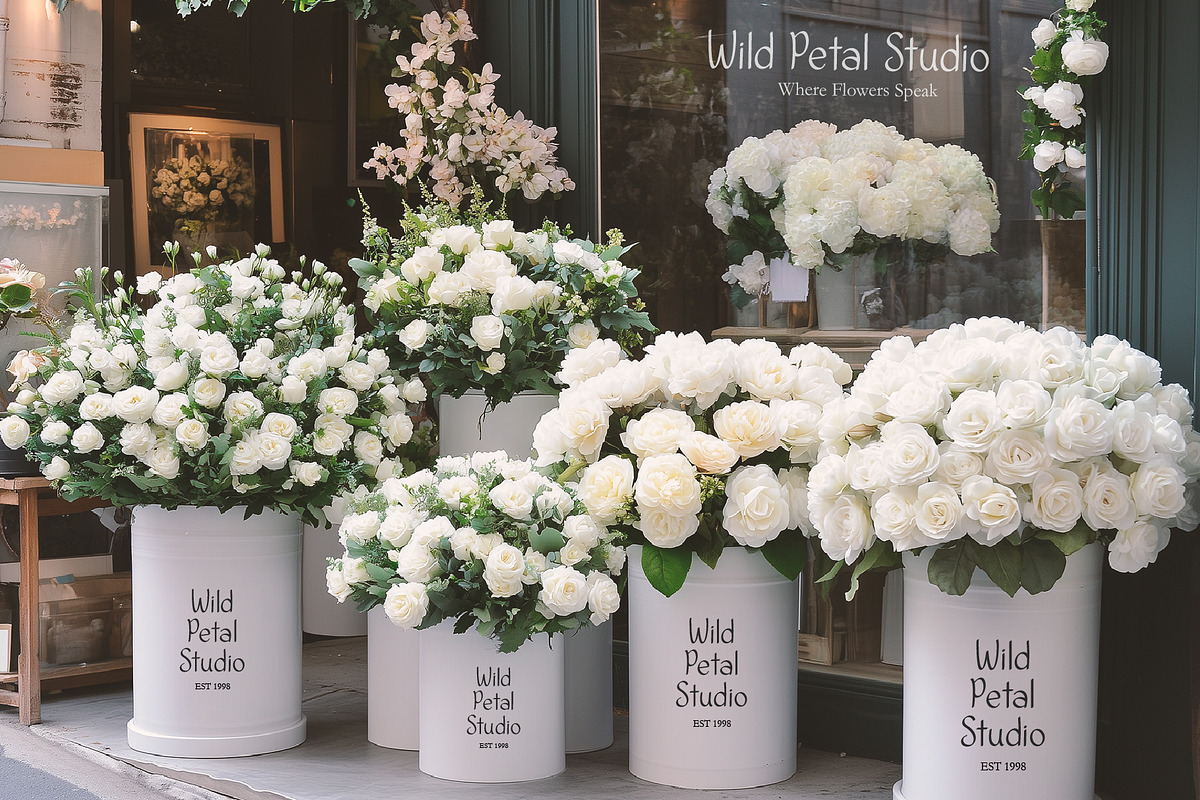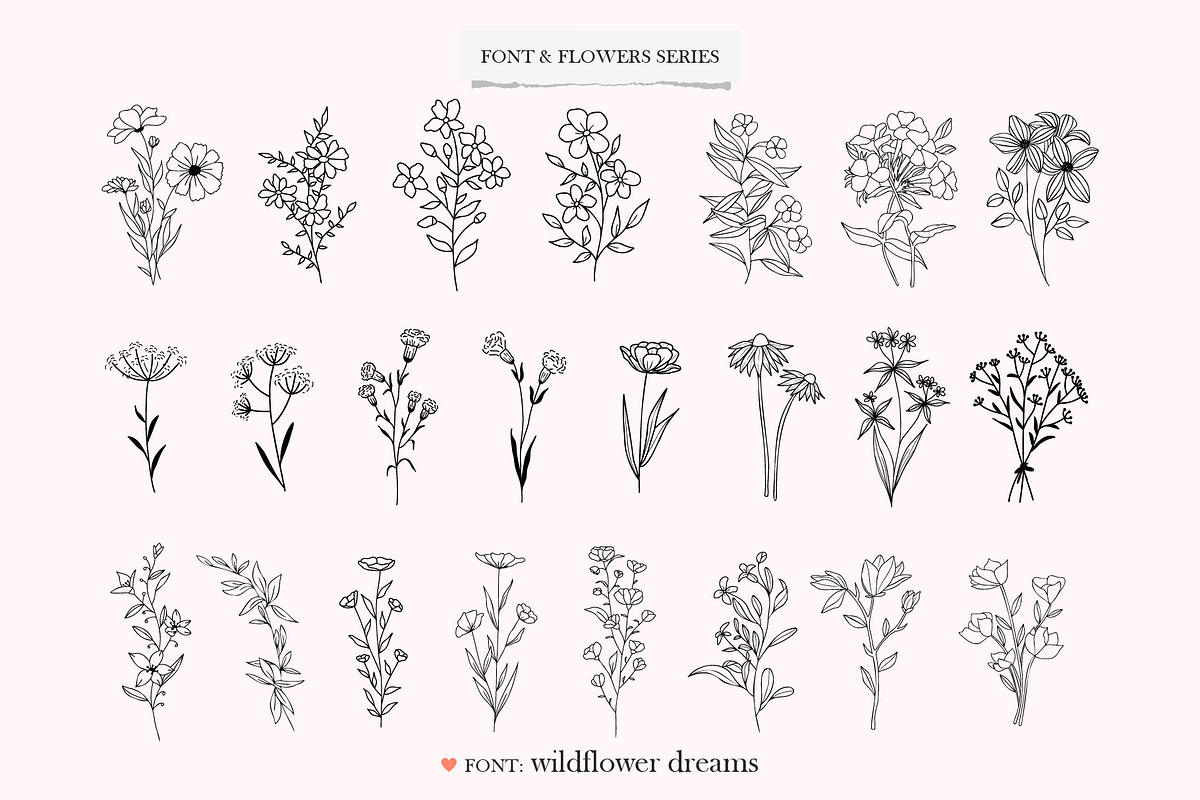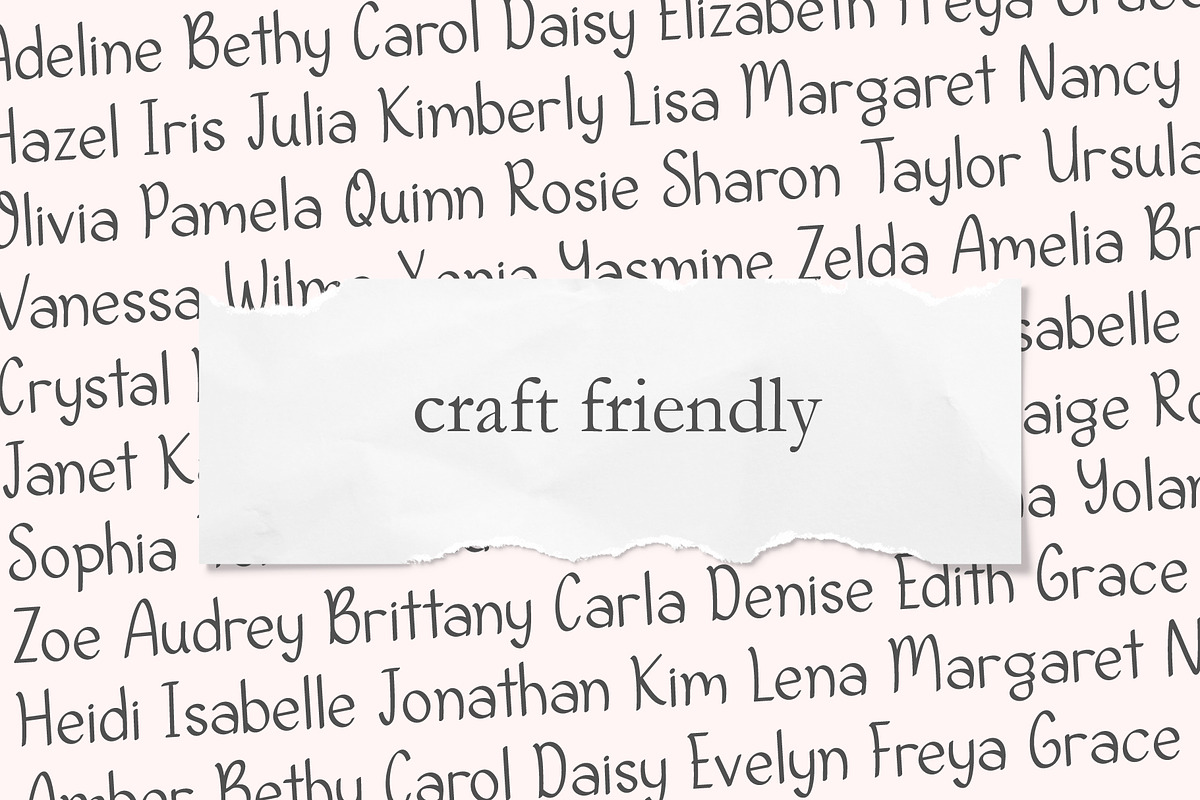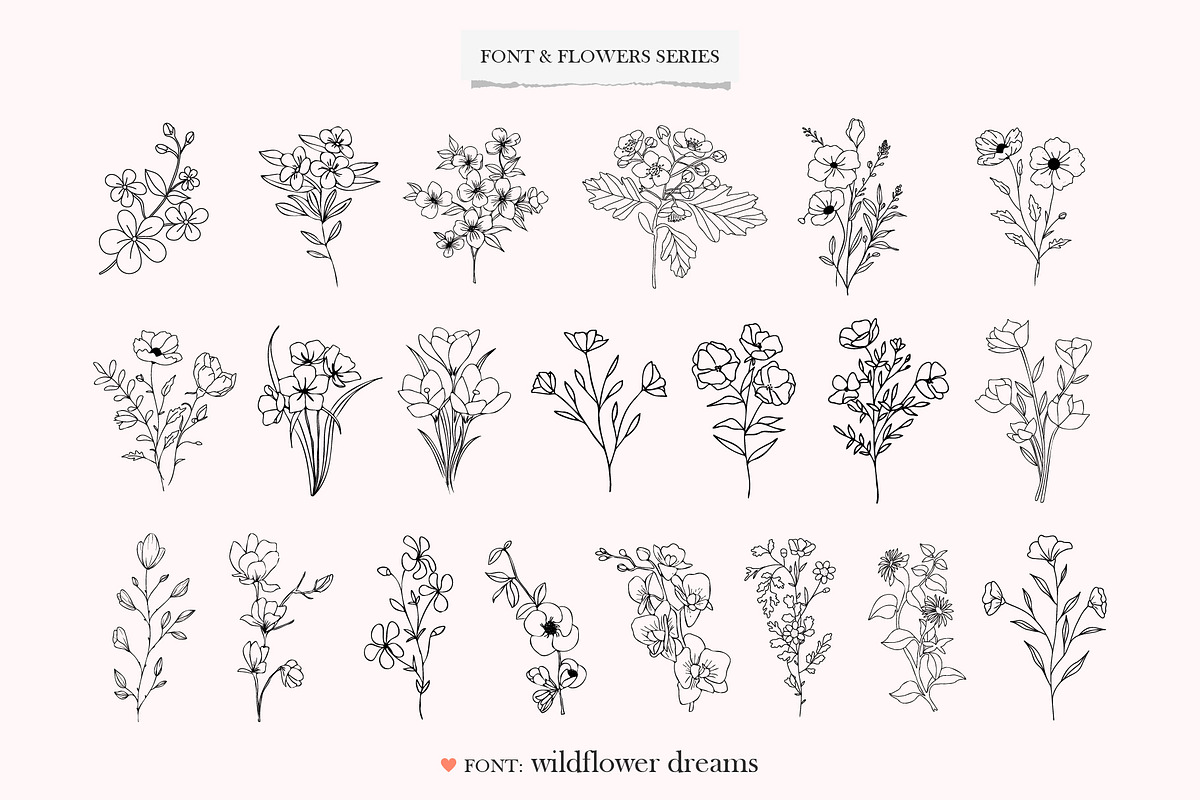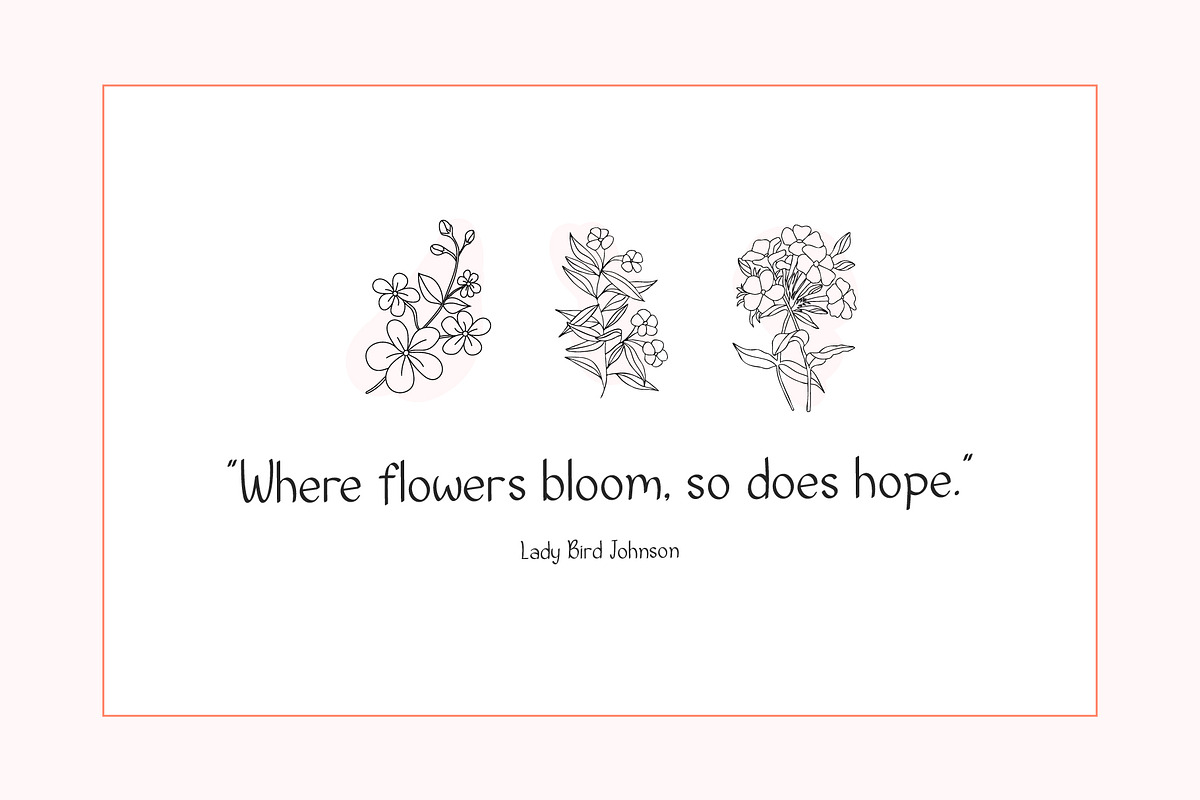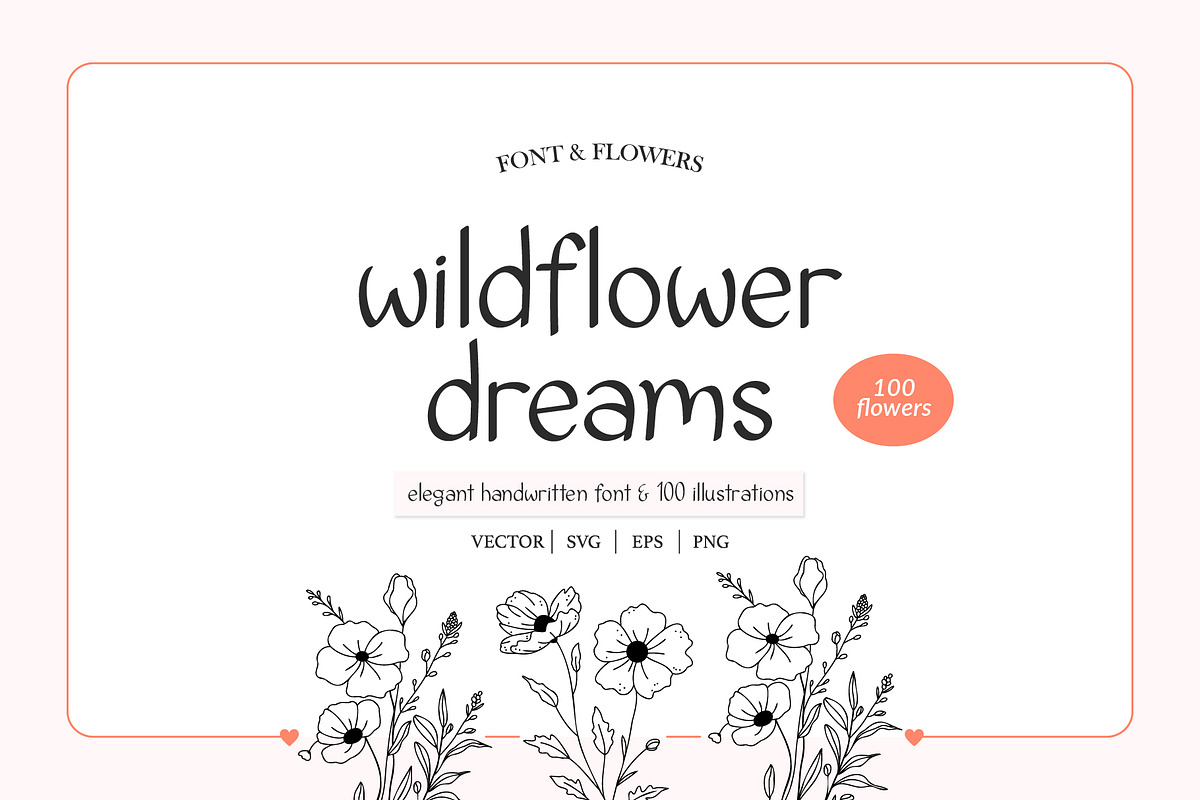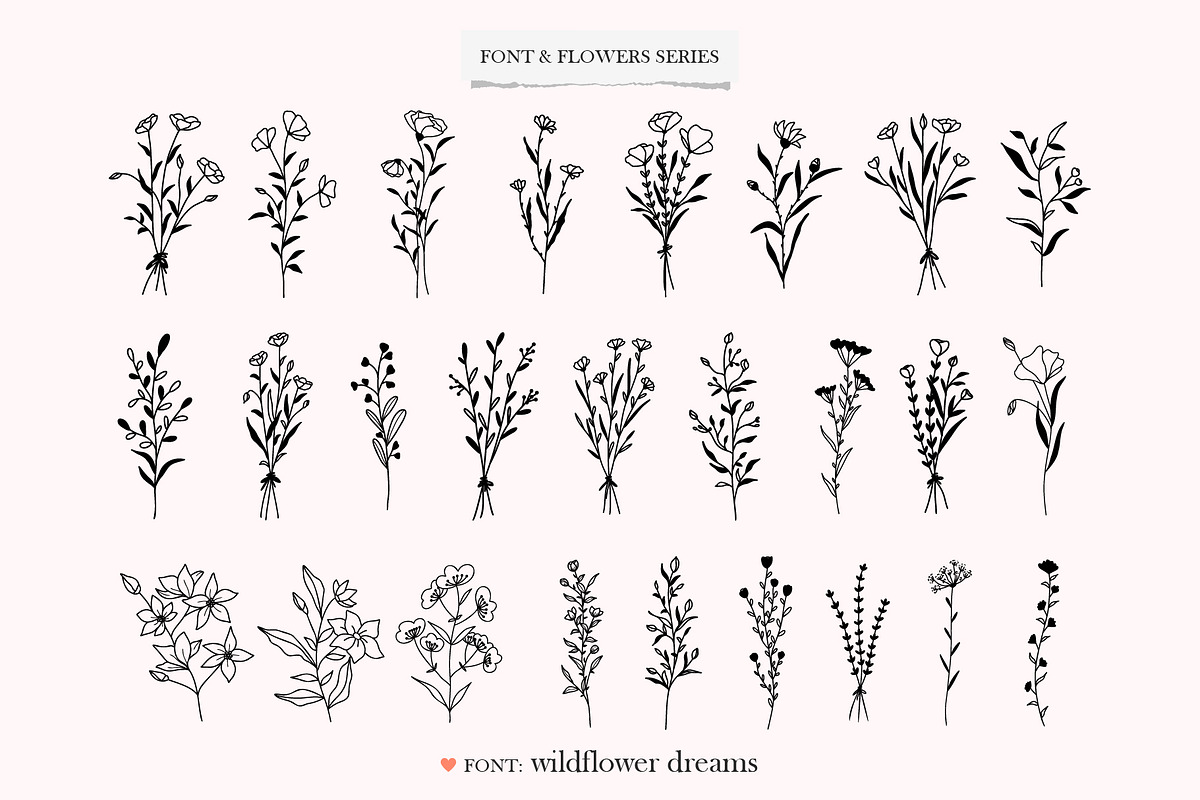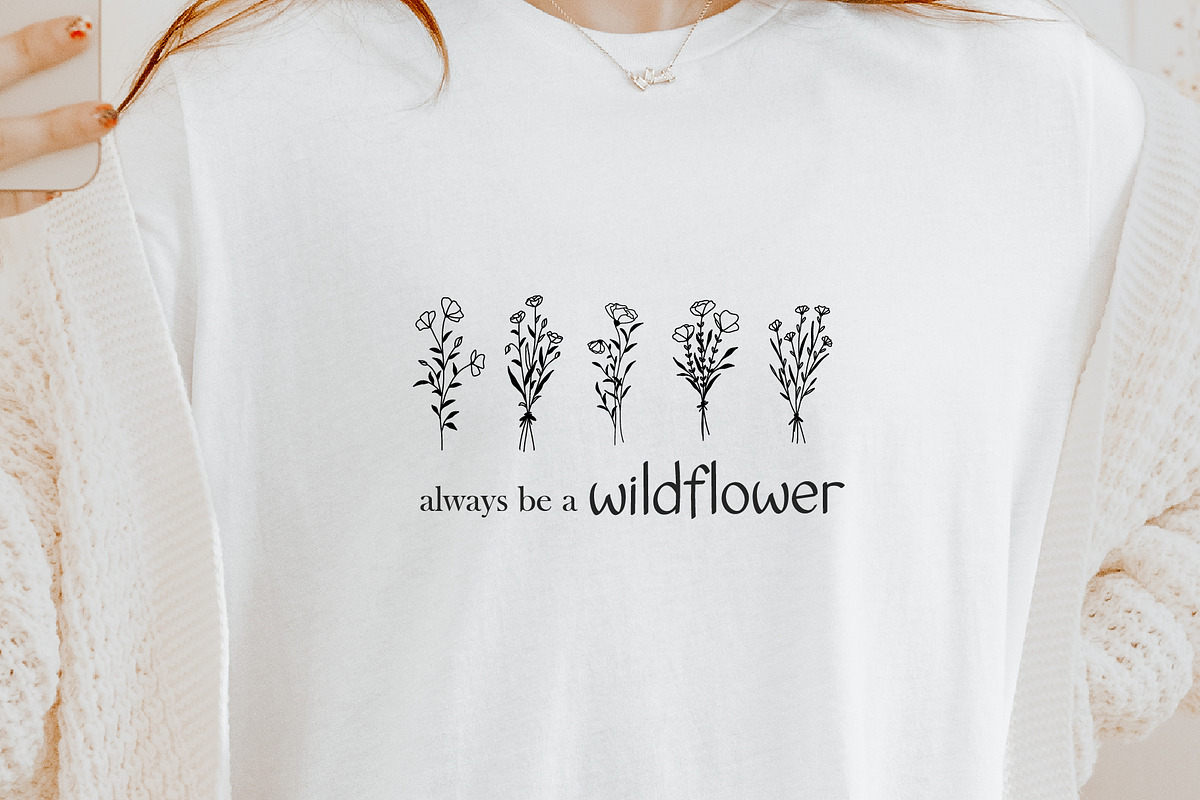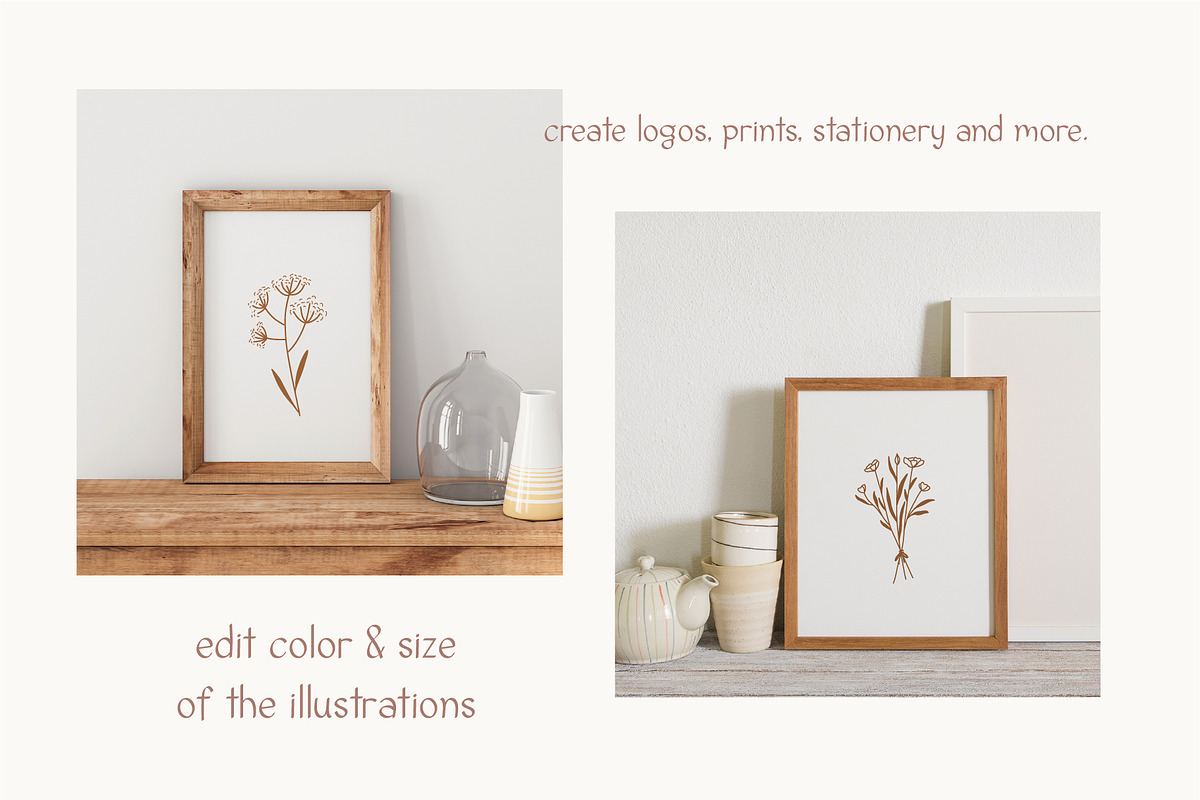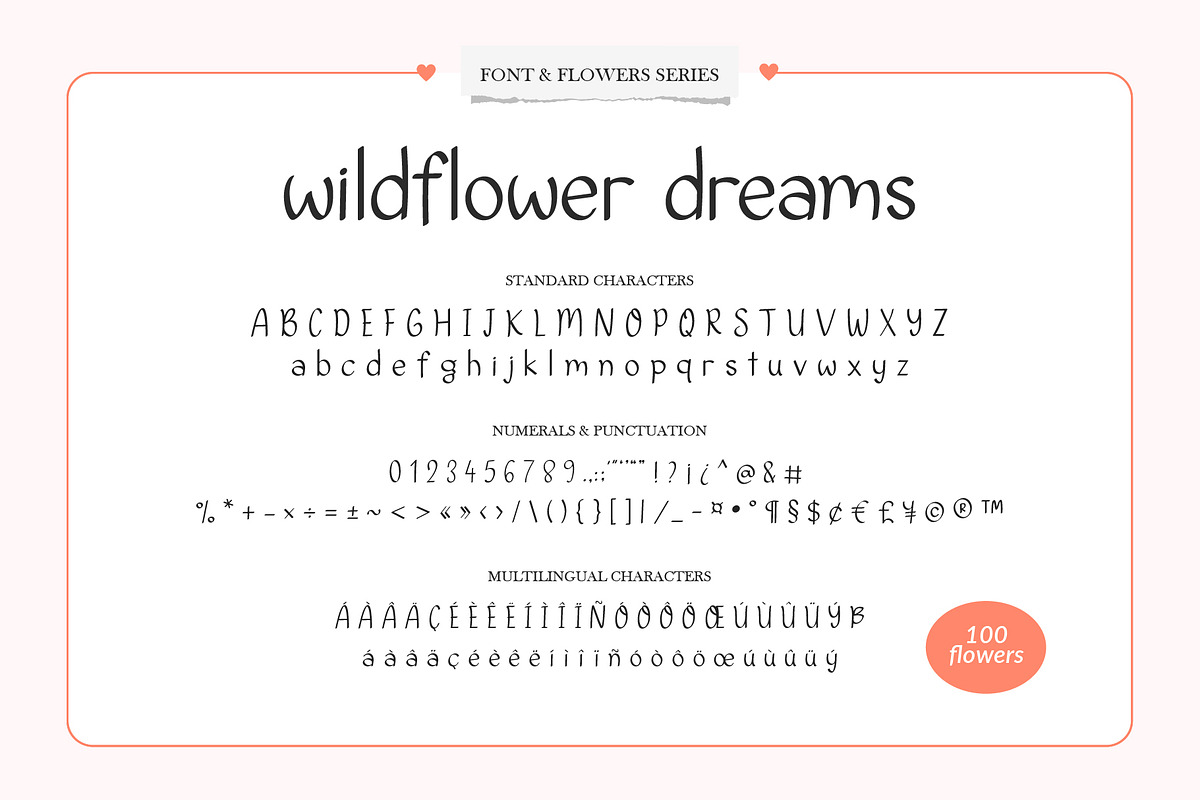
Wildflower Dreams Font & Flowers
So excited to introduce our new font and flower illustration series! This charming bundle includes 100 hand-drawn flower illustrations and a lovely, simple font. Perfect for adding a personal, creative touch to anything you’re working on—whether it’s invitations, craft projects, branding, or just some floral magic in your designs!
FONT FEATURES
• Standard characters (lowercase, uppercase, numbers, punctuation)